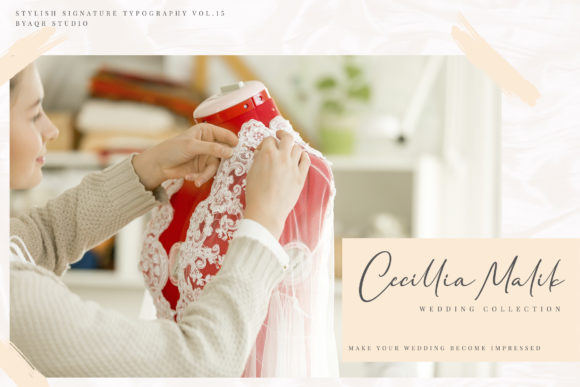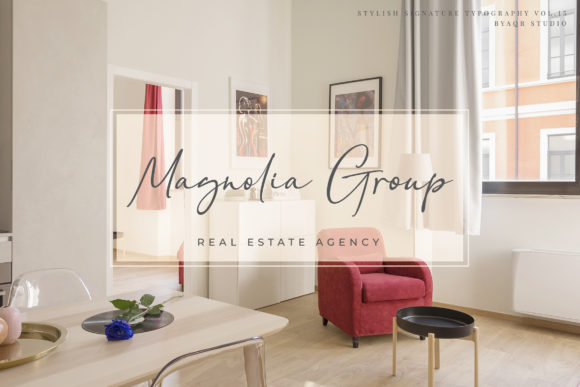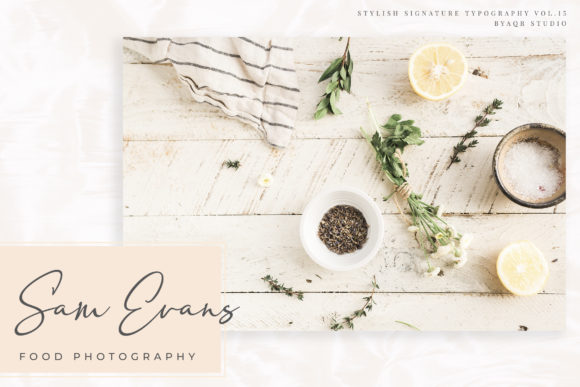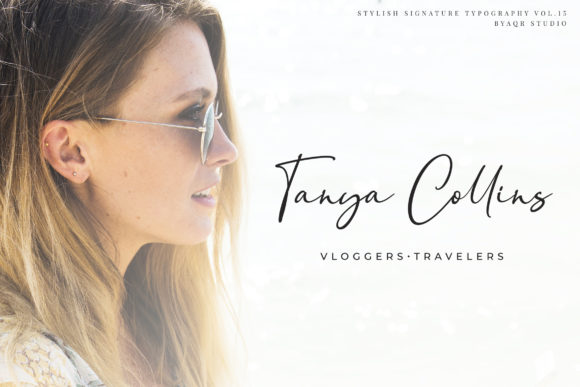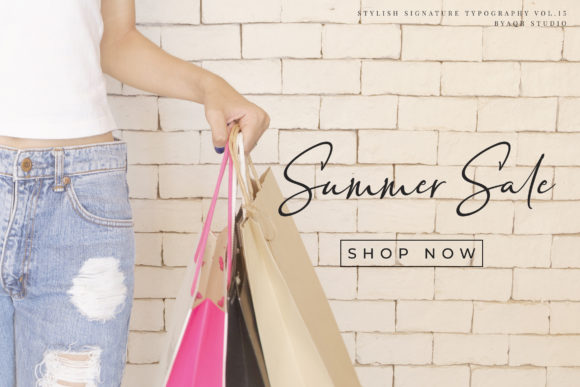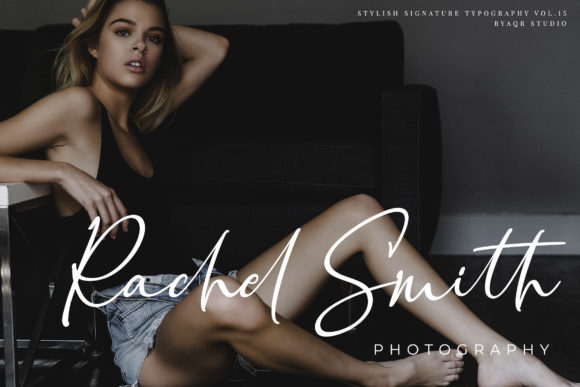
Introduction to Sakage Font
The Sakage is an elegant signature font.
Its curves and thinness will give your designs a natural handwritten style .
Key Features of Sakage Font
Why Choose Sakage Font?
Sakage Font offers exceptional quality and versatility, making it a valuable addition to your design toolkit. Whether you’re creating for personal projects or commercial use, Sakage Font delivers professional results.